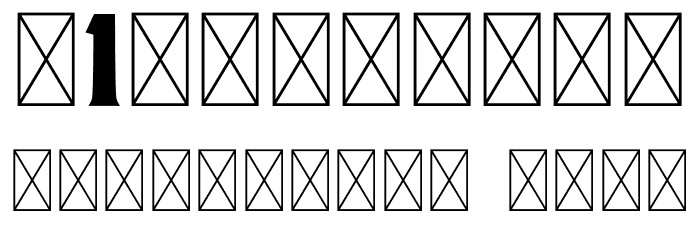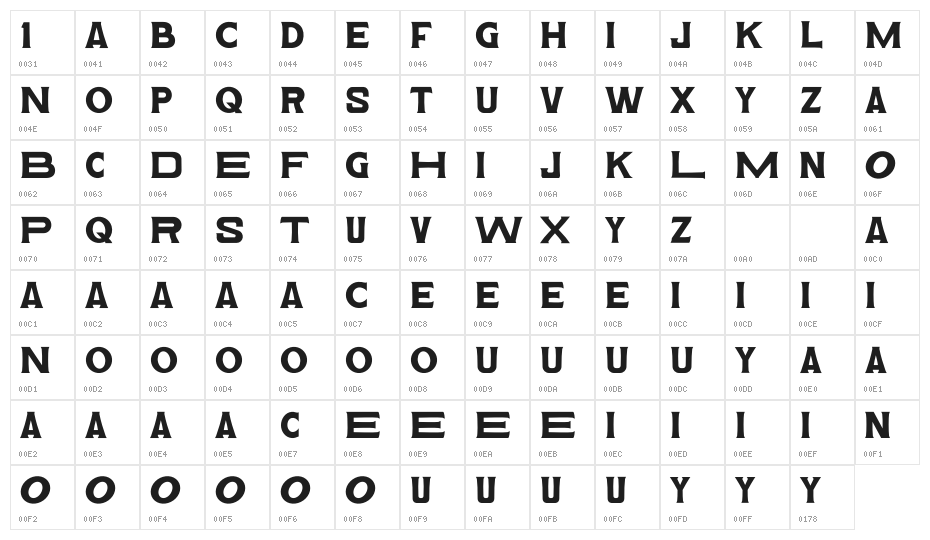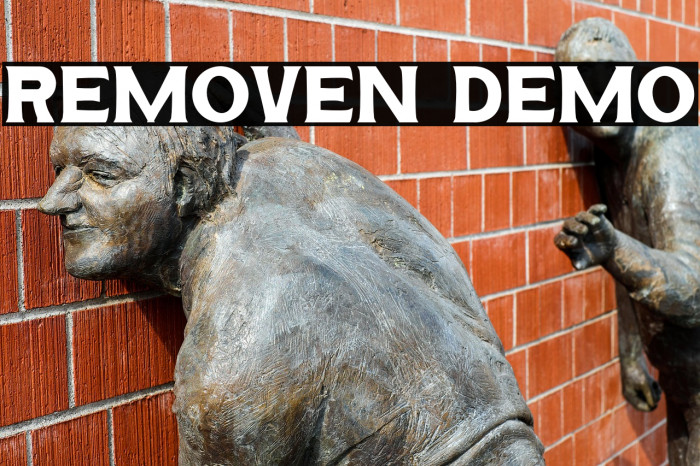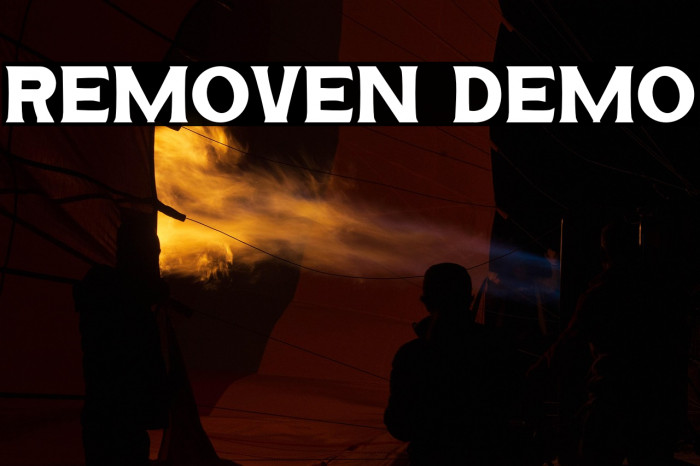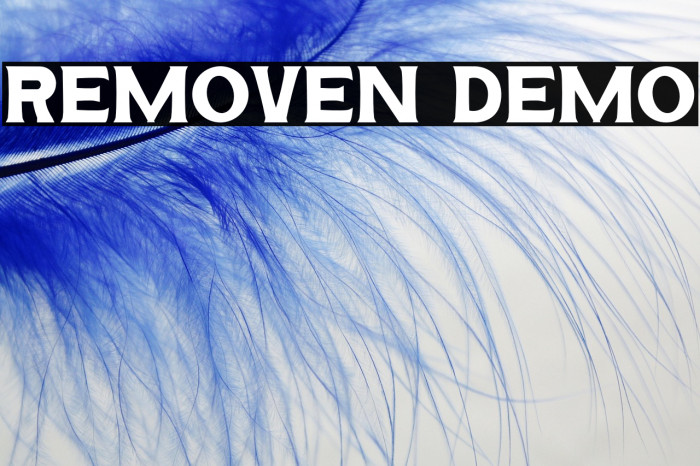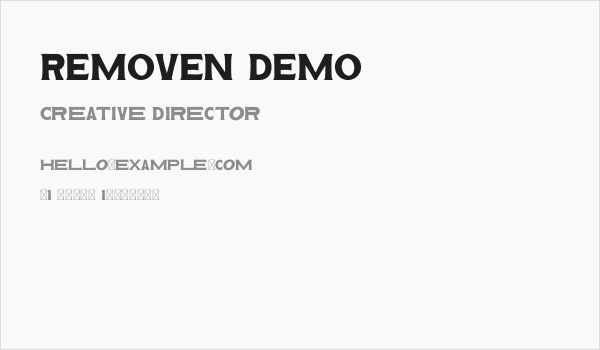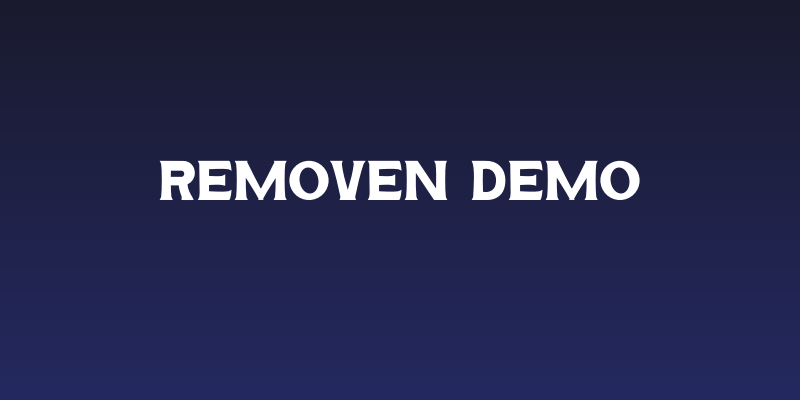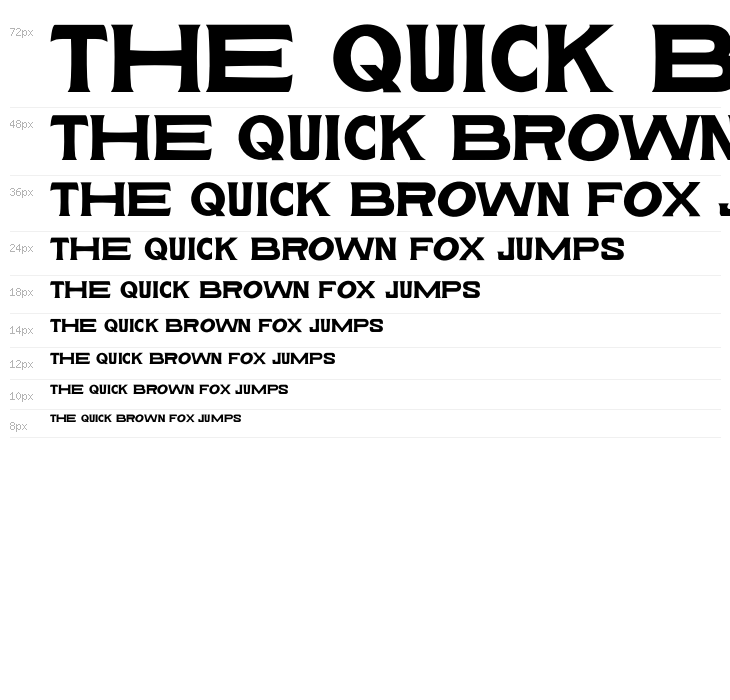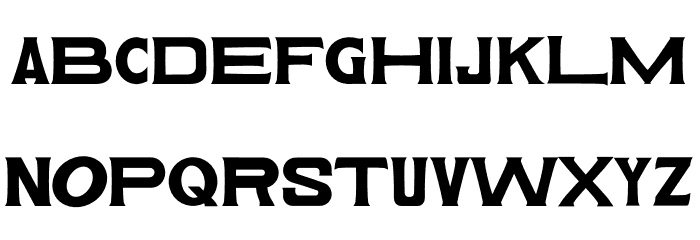
REMOVEN DEMO Font
REMOVEN DEMO Description
This font features bold, angular characters with a strong presence, ideal for making a statement. The uppercase letters exhibit a unique geometric style with sharp edges and a slightly condensed form, giving them a modern and edgy appearance. The characters are evenly spaced, ensuring readability while maintaining a distinctive look. The font lacks lowercase letters and numerals, focusing solely on uppercase alphabets, which enhances its use in specific design contexts. Its boldness and geometric nature make it suitable for attention-grabbing headlines and titles.
| Proposed Projects | Ideal for branding, posters, and any design requiring a bold, modern aesthetic. |